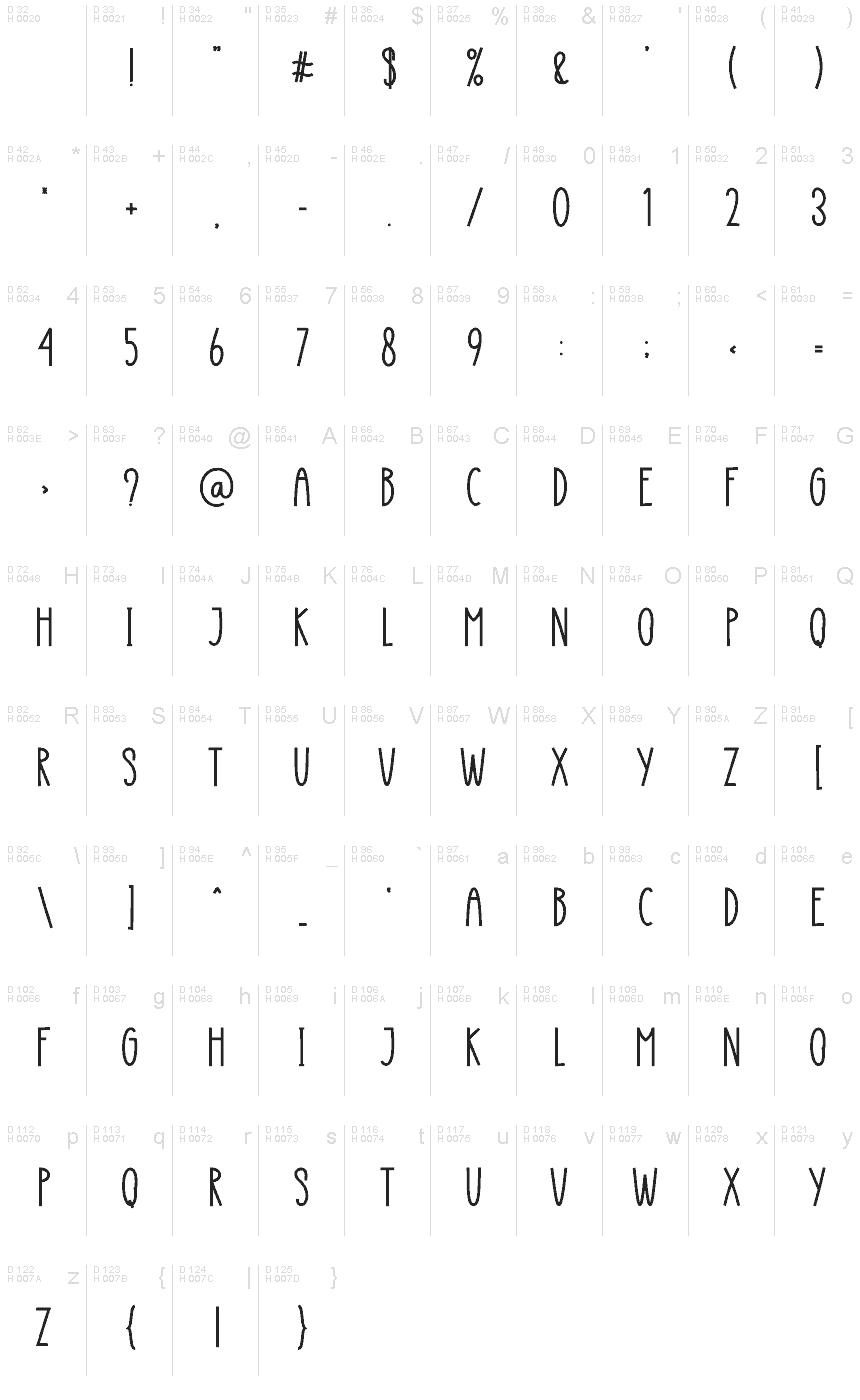
Summer Travel
Summer Travel font by Andi Moz is a free handwritten font characterized by a whimsical feel and casual elegance. Light in weight and condensed in width, this font appears effortlessly appealing with its relaxed lines defined by artistic flair. Its unique vintage-inspired and retro aesthetic will surely beat the competition, making your designs more expressive.
You can use Summer Travel for merchandise designs, quotes, logos, labels, headlines, invitations, greeting cards, social media content creation. Use cases are limitless as the font also supports advertising projects including posters and flyers as well as branding.